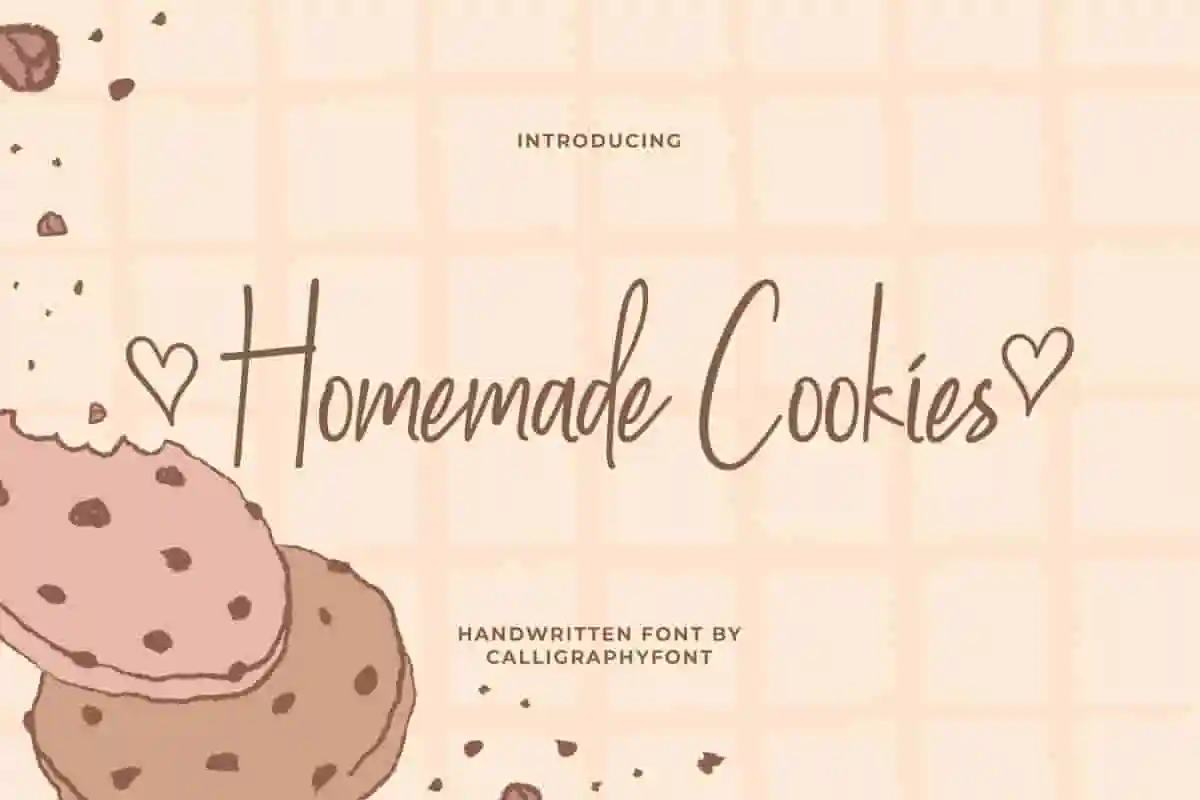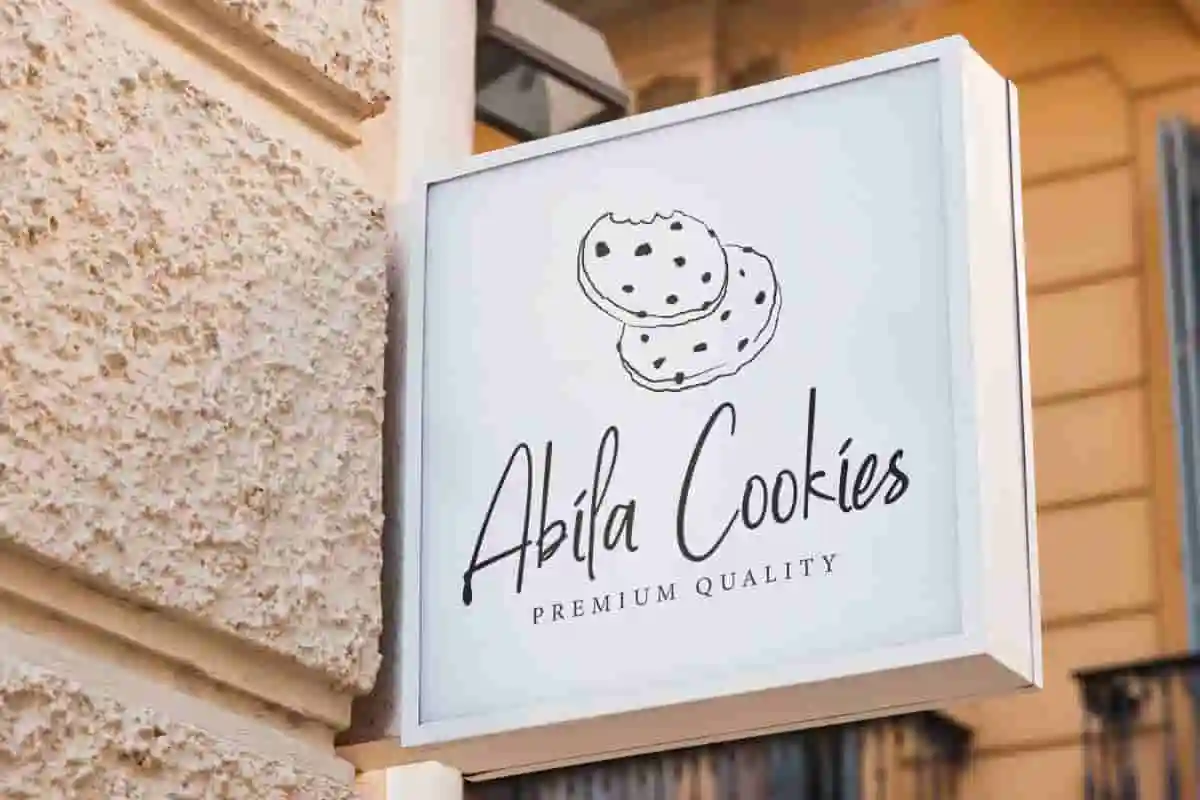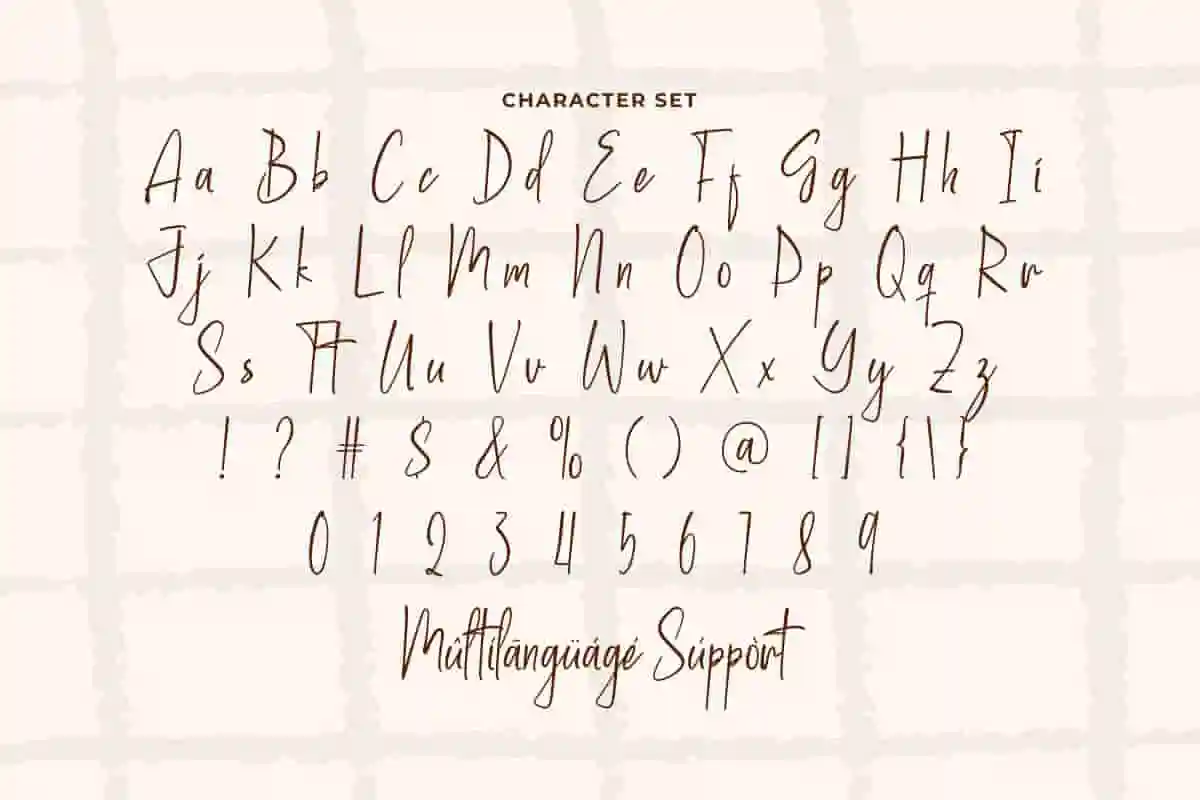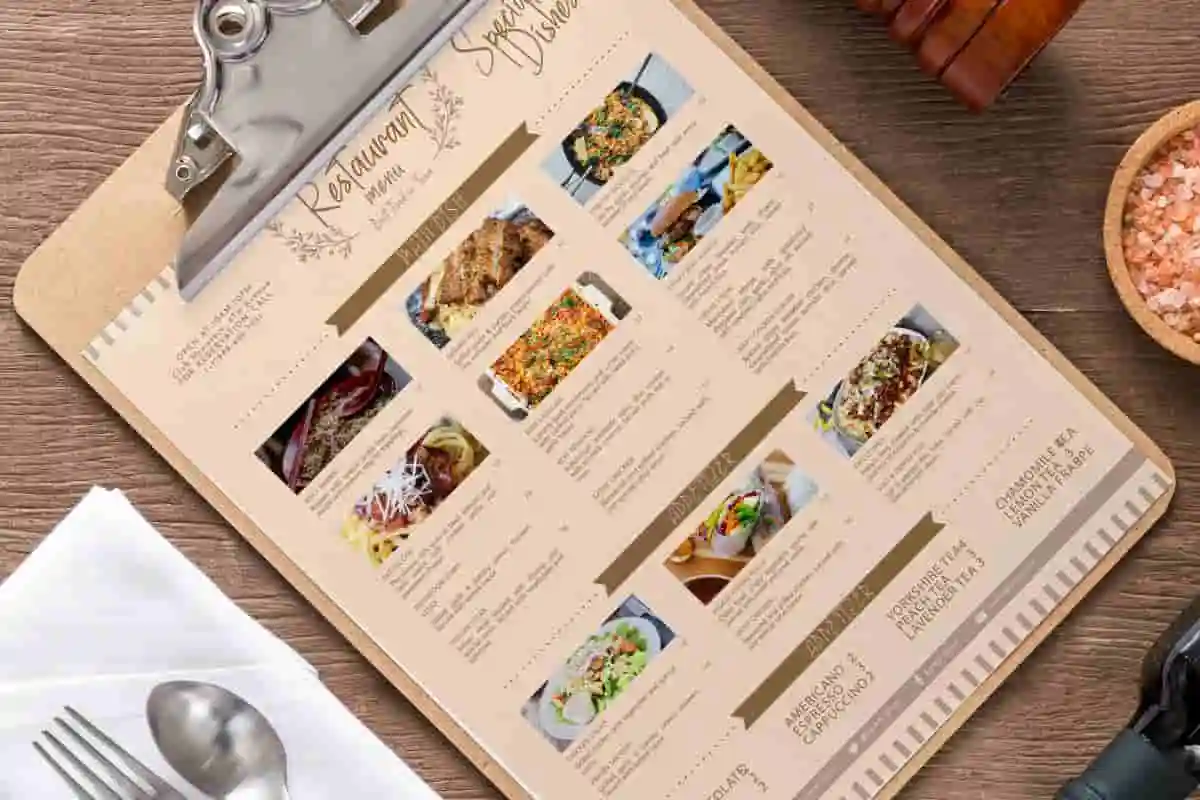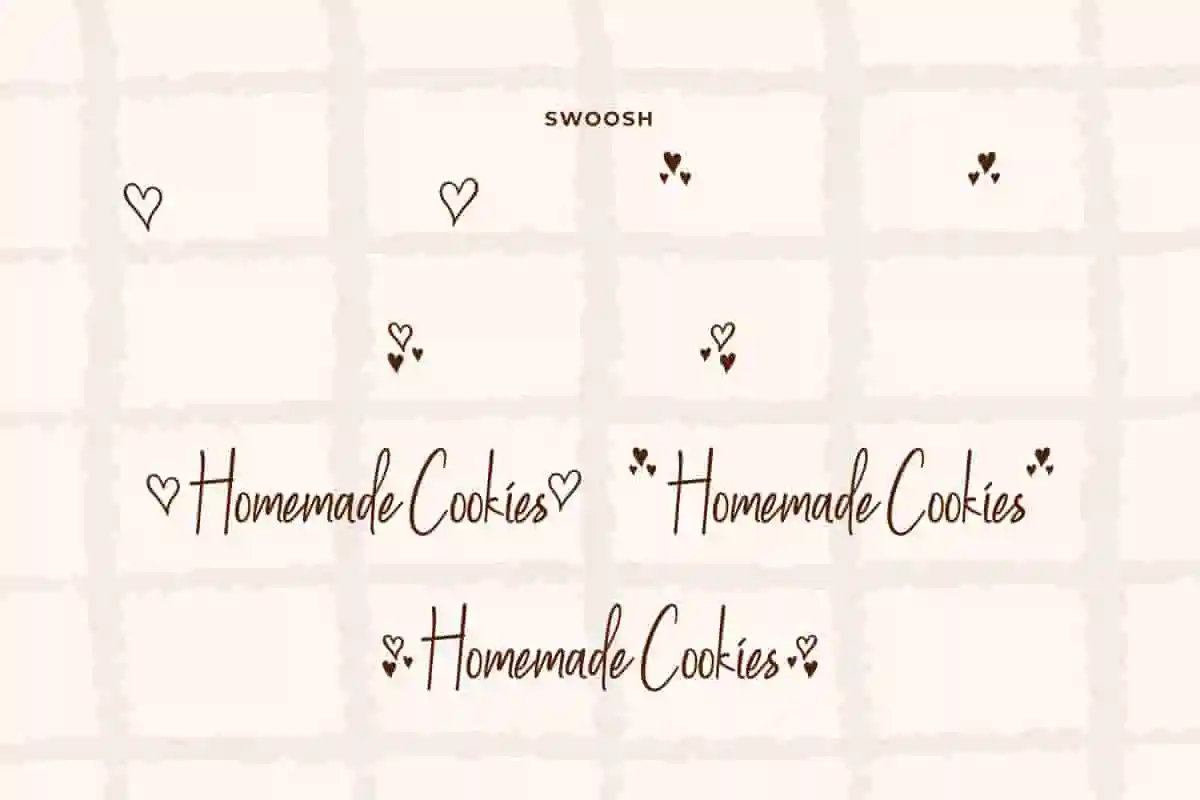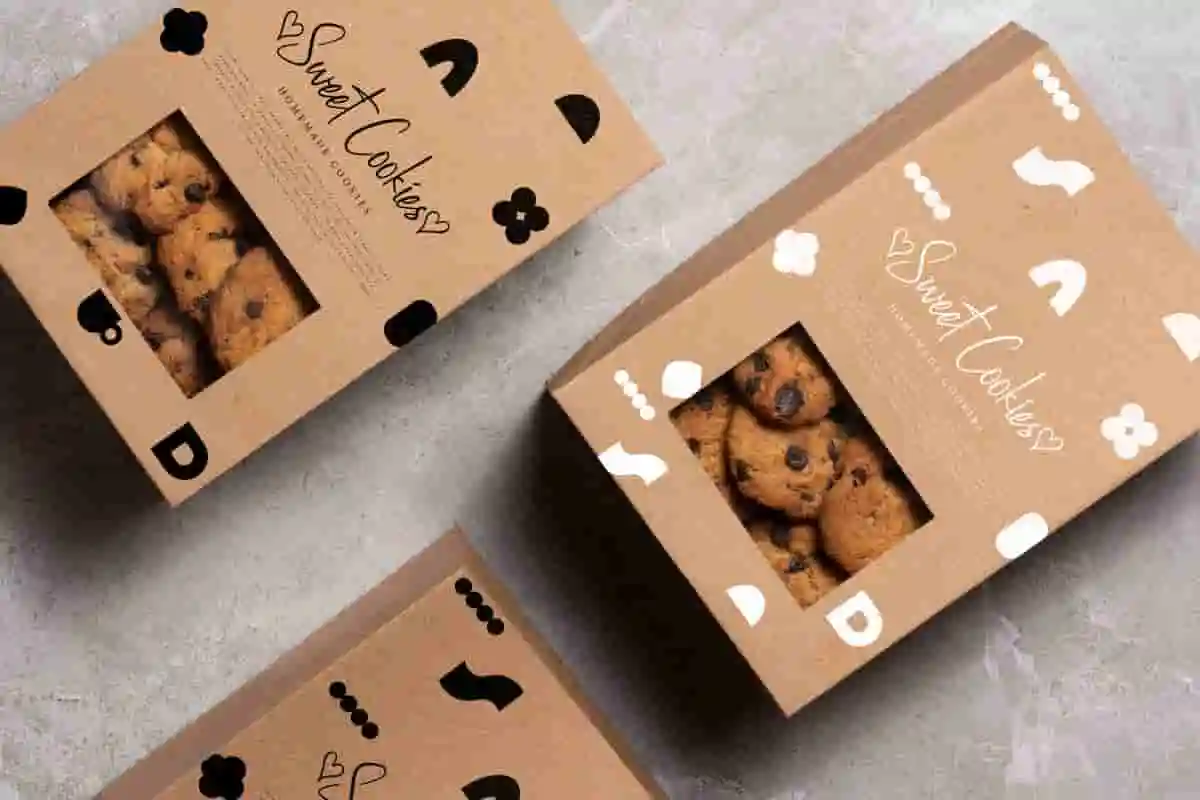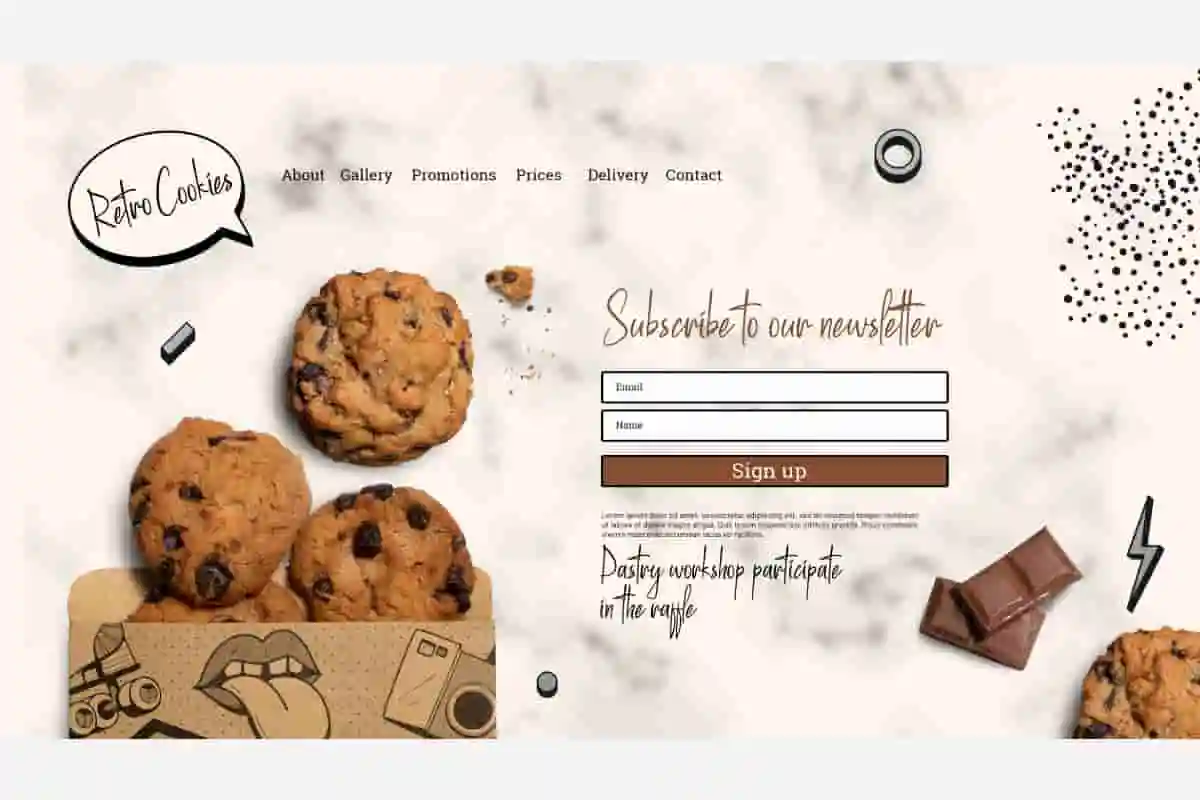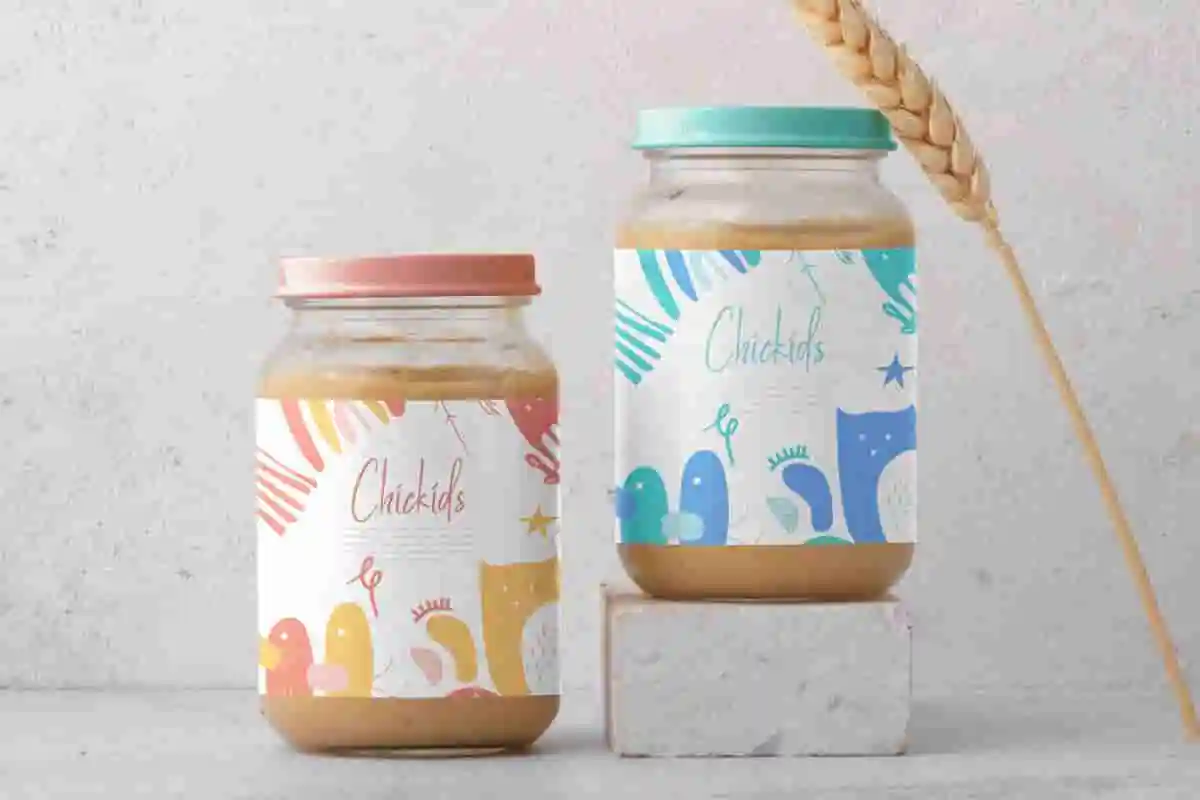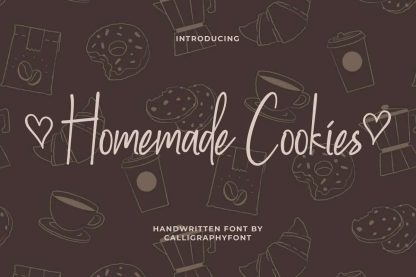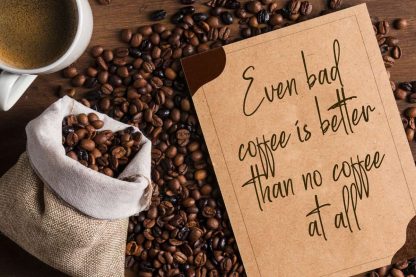
Homemade Cookies Font
Homemade Cookies Font is a modern sweet handwritten font with an attractive look. This font will be perfect for advertisement, brochure, cookie brand, cover, kids stuff, menu pamphlet, restaurant, school, signage, souvenir, website, etc.
Homemade Cookies Font is a thin sleek handwriting font with a sweet look, created by CalligraphyFonts. The attractive typography adapted from the concept of sweet cookies so it will suit any industry, such as accessories, bakery and cake shop, beverages, café, cooking class, event organizer, fashion brand, florist, furniture, gifts and souvenirs, handicrafts, kids stuff, jewelry, printing, publishing, real estate, restaurant, skincare, spa salon, toy store, and many more.
Introducing Homemade Cookies Handwriting Font, a delightful and charming typeface that brings warmth, creativity, and personality to every project. Just like the comforting aroma of freshly baked cookies, this decorative font adds a sweet and inviting feel to your designs. Whether you’re working on branding, packaging, invitations, or social media graphics, Homemade Cookies Font is the perfect ingredient to make your creations truly irresistible.
Designed with playful strokes and a hand-drawn style, Homemade Cookies Handwriting Font captures the essence of fun and creativity. Its unique letterforms are both eye-catching and versatile, making it an ideal choice for logos, bakery branding, recipe books, greeting cards, children’s projects, or any design that needs a cheerful and handmade vibe.
The beauty of Homemade Cookies Handwriting Font lies in its ability to combine elegance with a personal touch. Its decorative curves and friendly personality make it stand out while keeping your text readable and engaging. Pair it with clean sans-serif fonts for a modern balance, or use it on its own to create bold and memorable statements.
Homemade Cookies Handwriting Font comes with a full set of Uppercase and Lowercase Basic Characters, Number, a large range of Punctuation, Symbol, and lovely Swoosh. It will be ready to accompany you on any sweet related projects, such brand logo, brochure, cover, embossed design, flyer, header, invitation, label, menu pamphlet, packaging design, signage, stationery, sticker, title, website, or just the art of writing on a background.